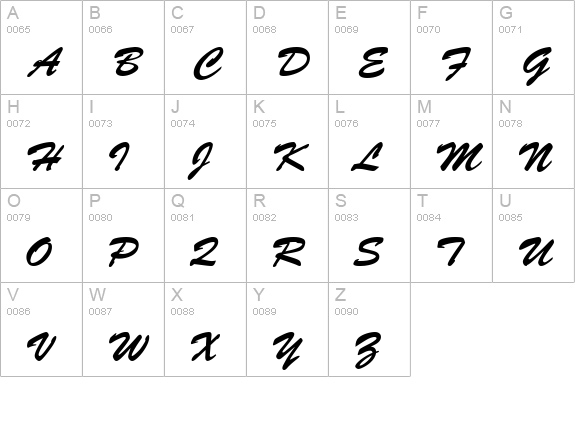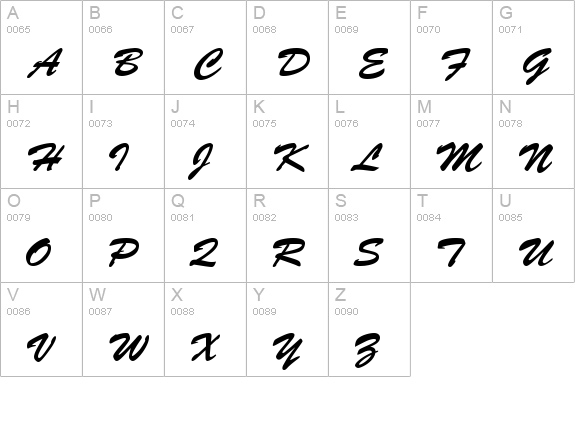
TR Banff Plain Font Details
TR Banff Plain font is a versatile and elegant typeface that exudes modern sophistication. With its clean lines and balanced proportions, this font is perfect for a wide range of design projects, from branding to print materials. The timeless simplicity of TR Banff Plain font makes it a go-to choice for designers looking to add a touch of class to their work. The best part? TR Banff Plain font is available for free download at FontsMarket.com, making it accessible to designers of all levels. Whether you're working on a professional project or simply want to elevate your personal creations, TR Banff Plain font is a versatile and high-quality option that won't break the bank. Download it today and see how this font can elevate your designs to the next level.